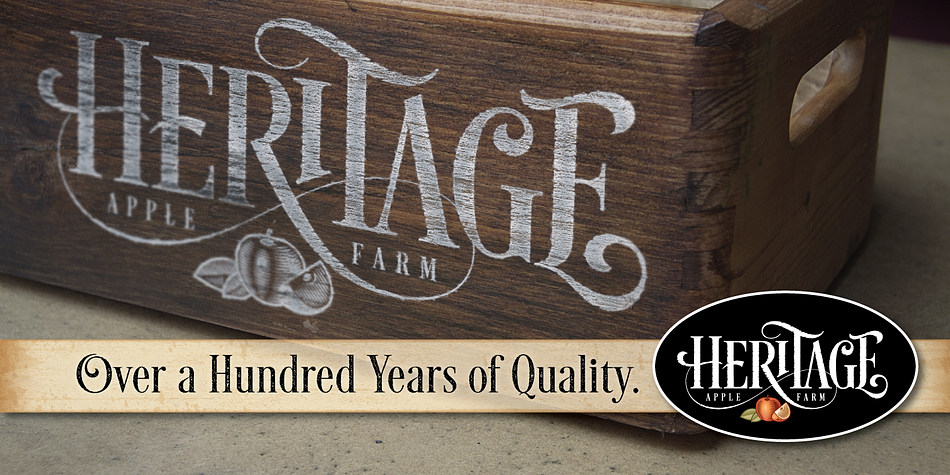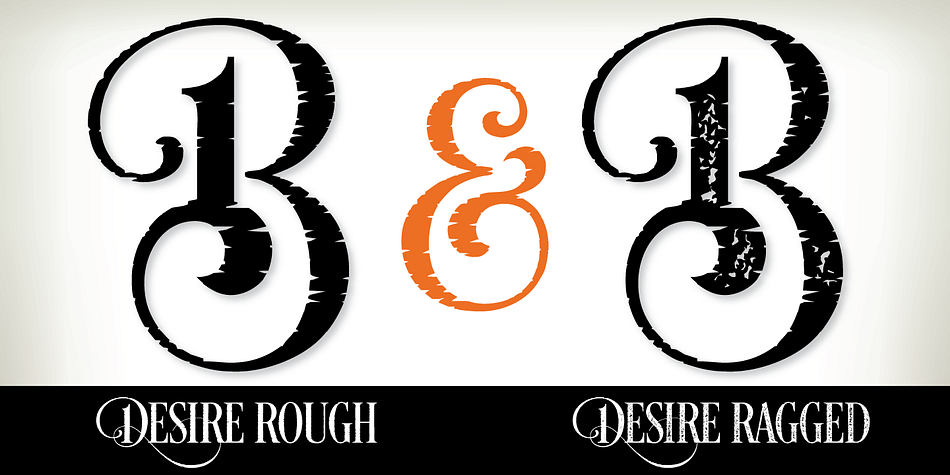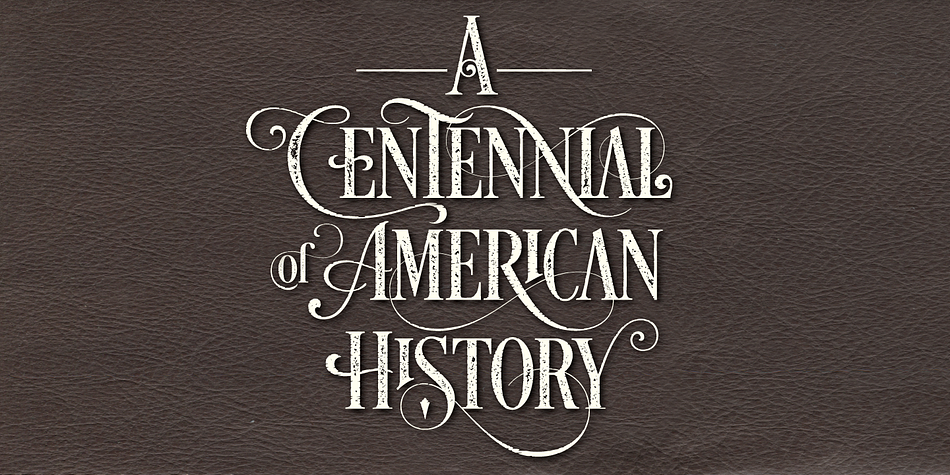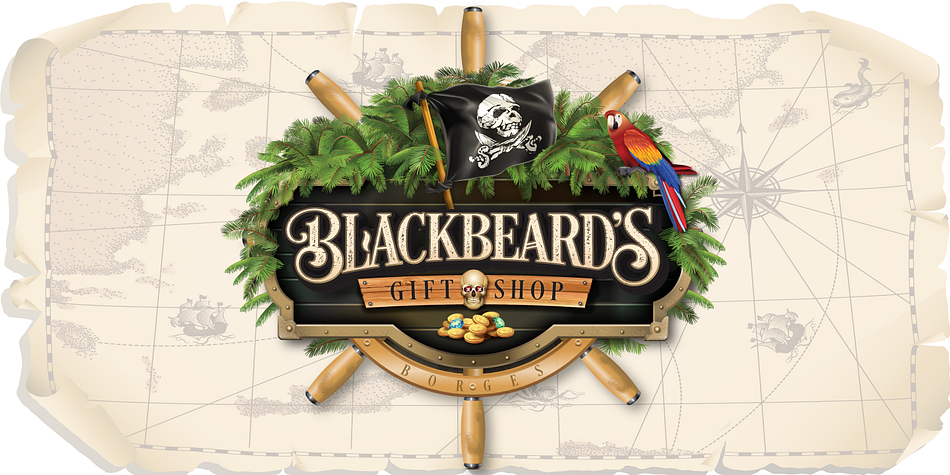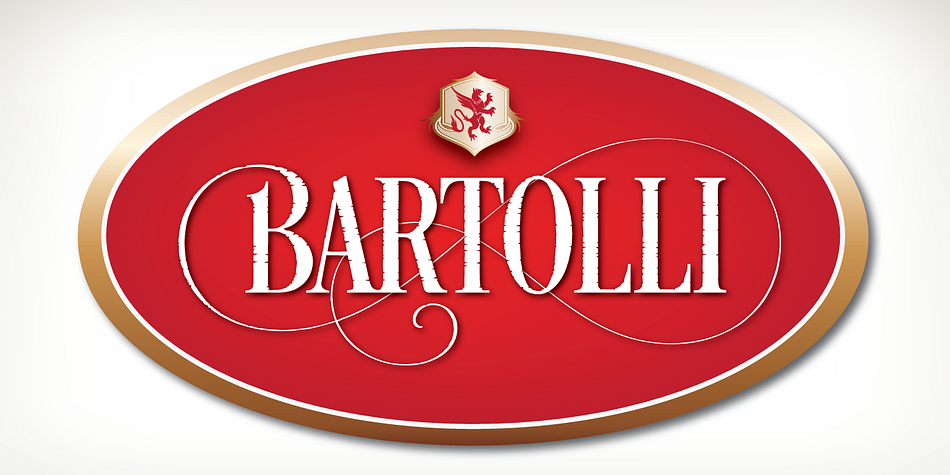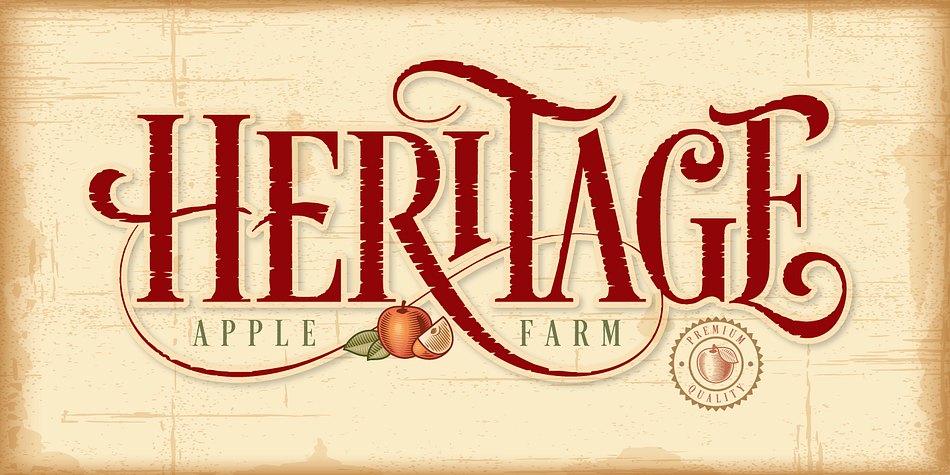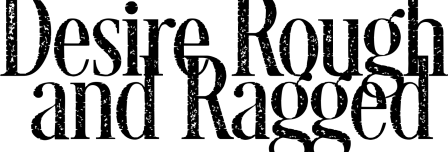
Designed by Charles Borges de Oliveira, Desire Rough and Ragged is a grunge and display serif font family. This typeface has twelve styles and was published by Borges Lettering & Design.
Desire Rough has a nice textured edge while Desire Ragged has the textured edge plus a rough fill. Both fonts are included. Featuring 644 alternate letters, 98 ligatures, 8 flourishes and 6 catchwords, Desire Rough & Ragged offers an expansive set of options to create logos, headlines and titling. It is well suited for books, editorial, packaging, advertising, branding and more. From period style and Victorian to modern and elegant, Desire Rough & Ragged is strong and stately yet elegant and decorous. A wide selection of alternate upper and lowercase forms feature delicate line flourishes creating a subtle background for additional letters to rest – the result is an intertwining and beautifully flourished design. Unique ligatures go beyond function and add eye catching flair and style. Desire Rough & Ragged is truly a designer’s dream come true! PDF’s of all of the Alternates, Ligatures, Flourishes, and Catchwords is included. Just print it out and use it as a handy reference. Also a helpful description on how to use the font if your software does not support Open Type Features is included. Desire Rough & Ragged have PUA support.